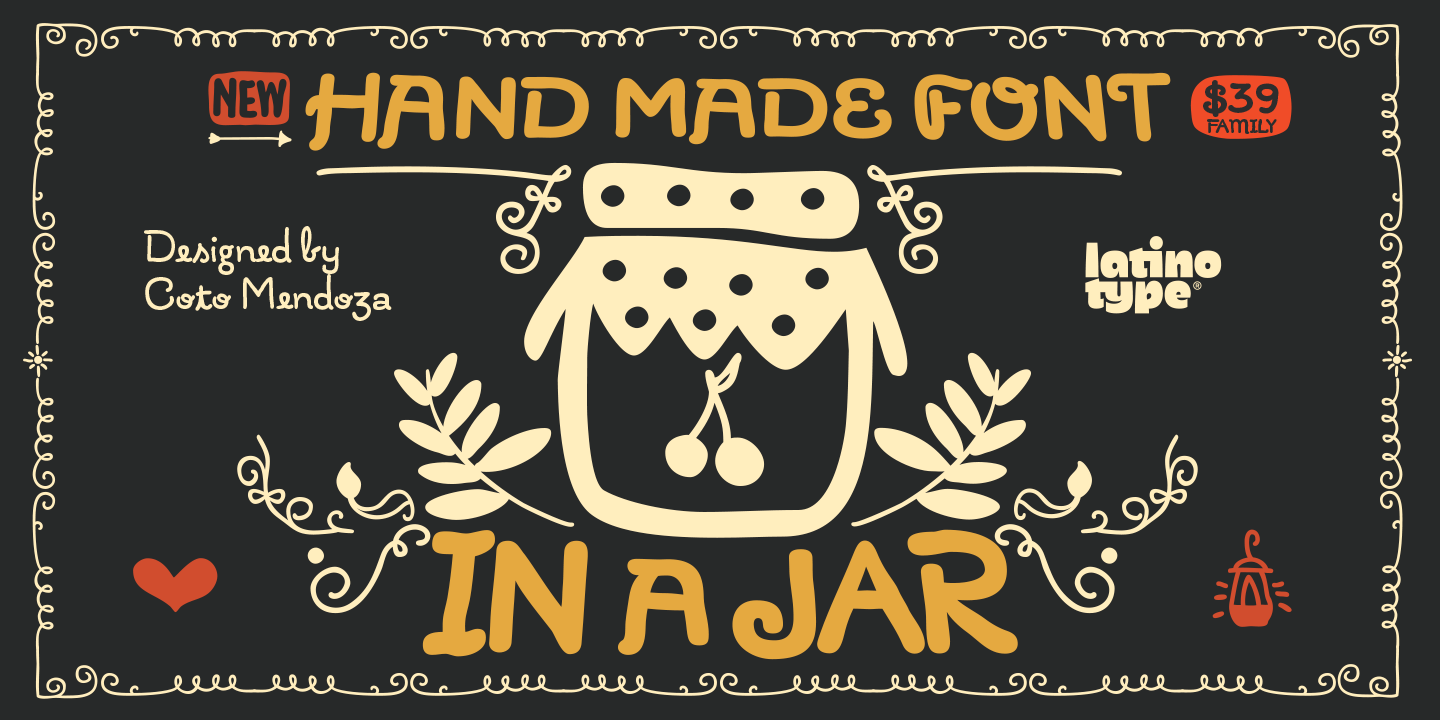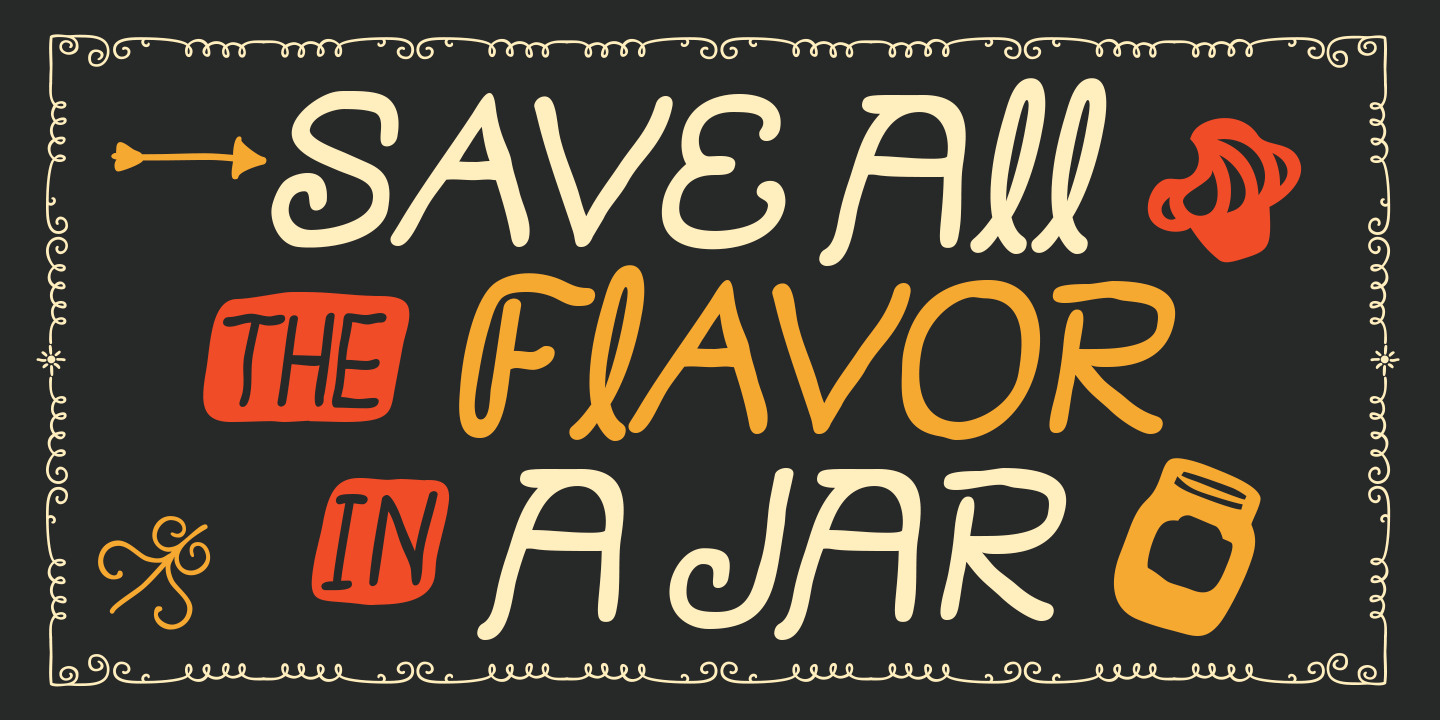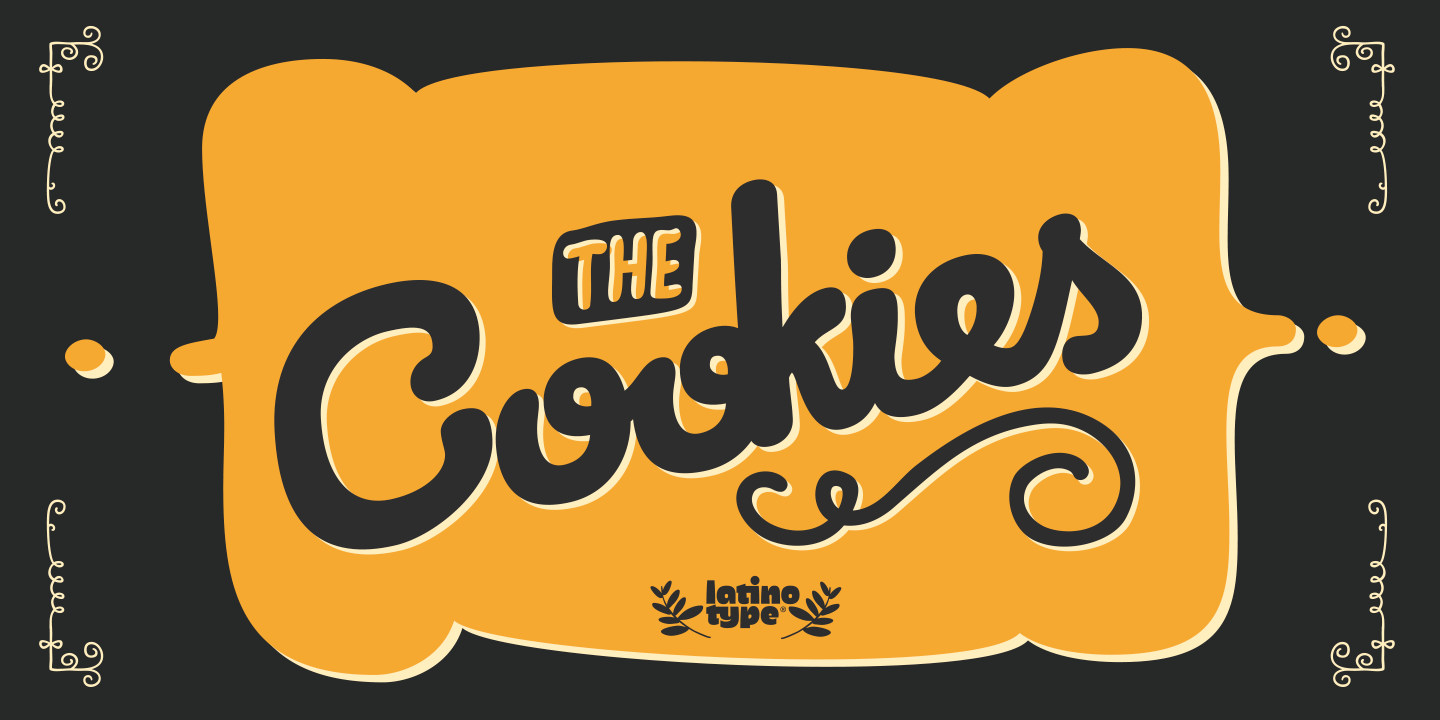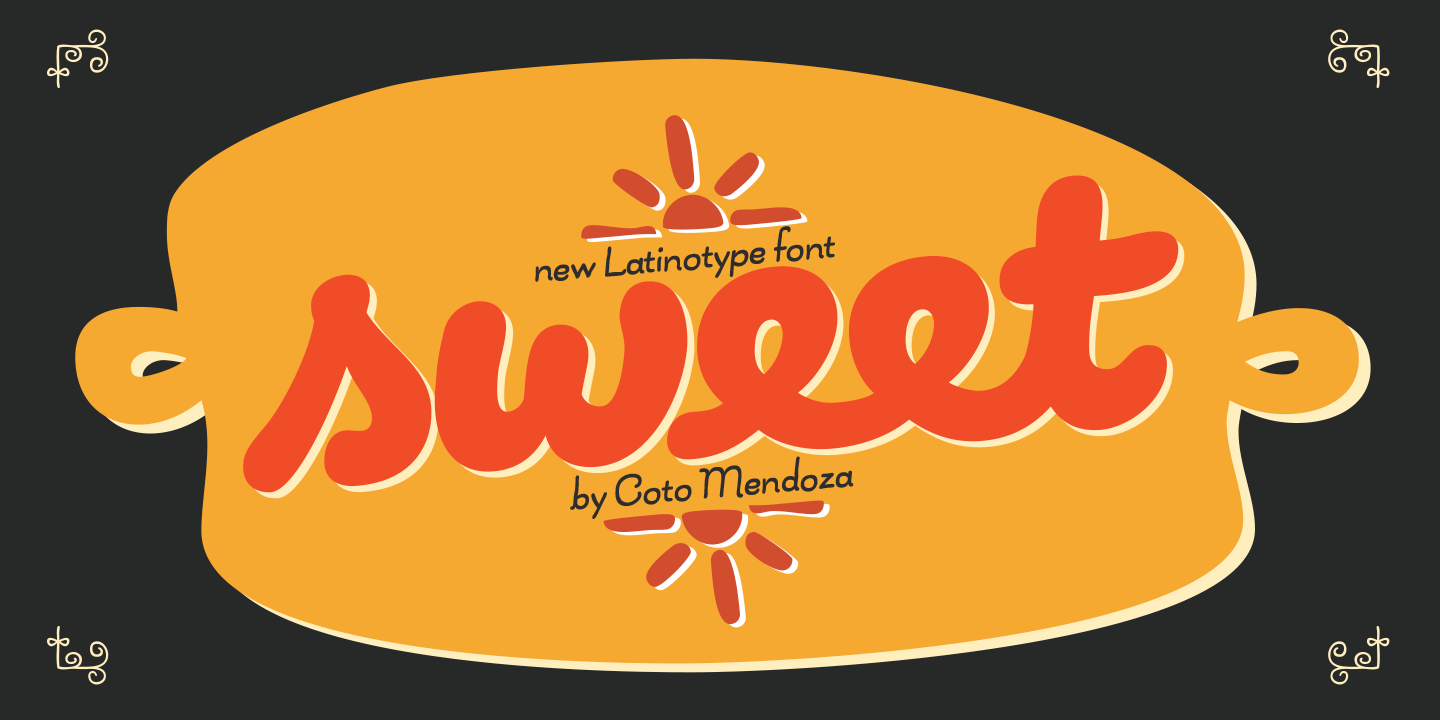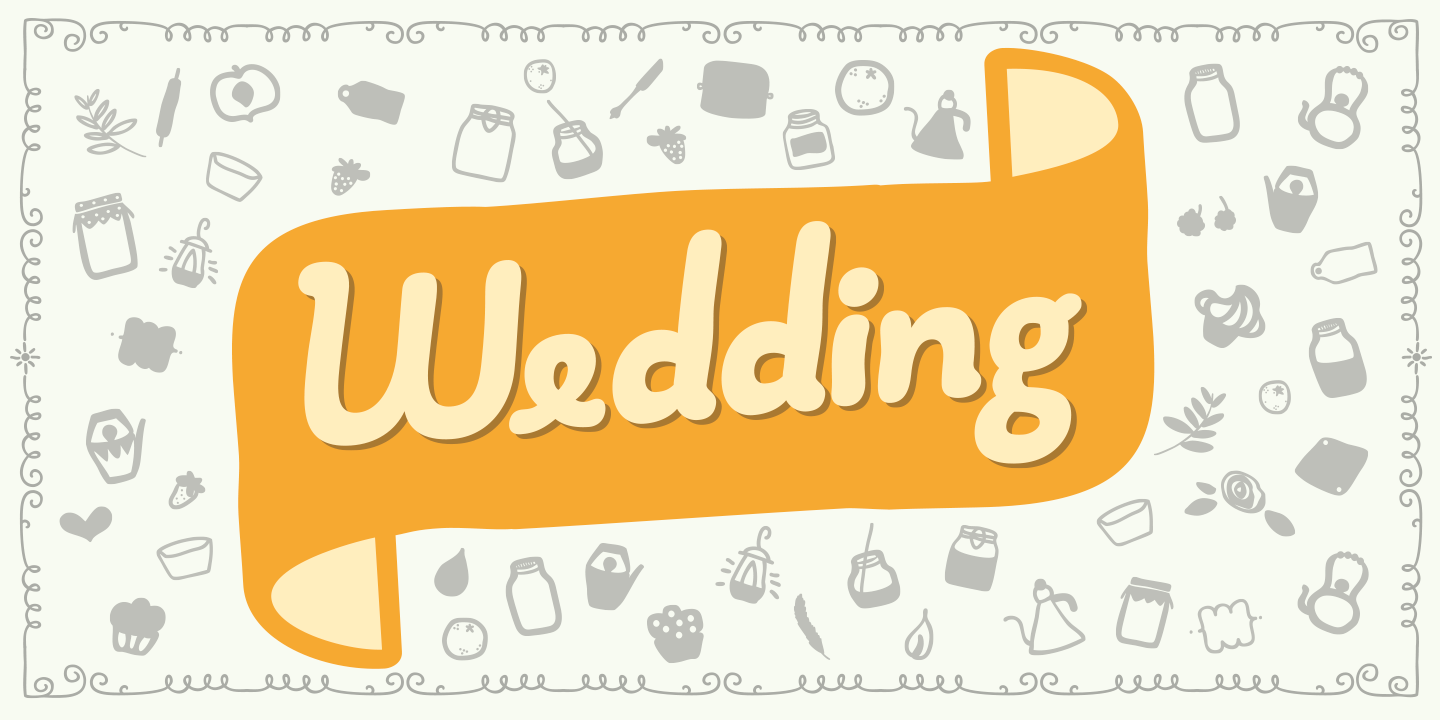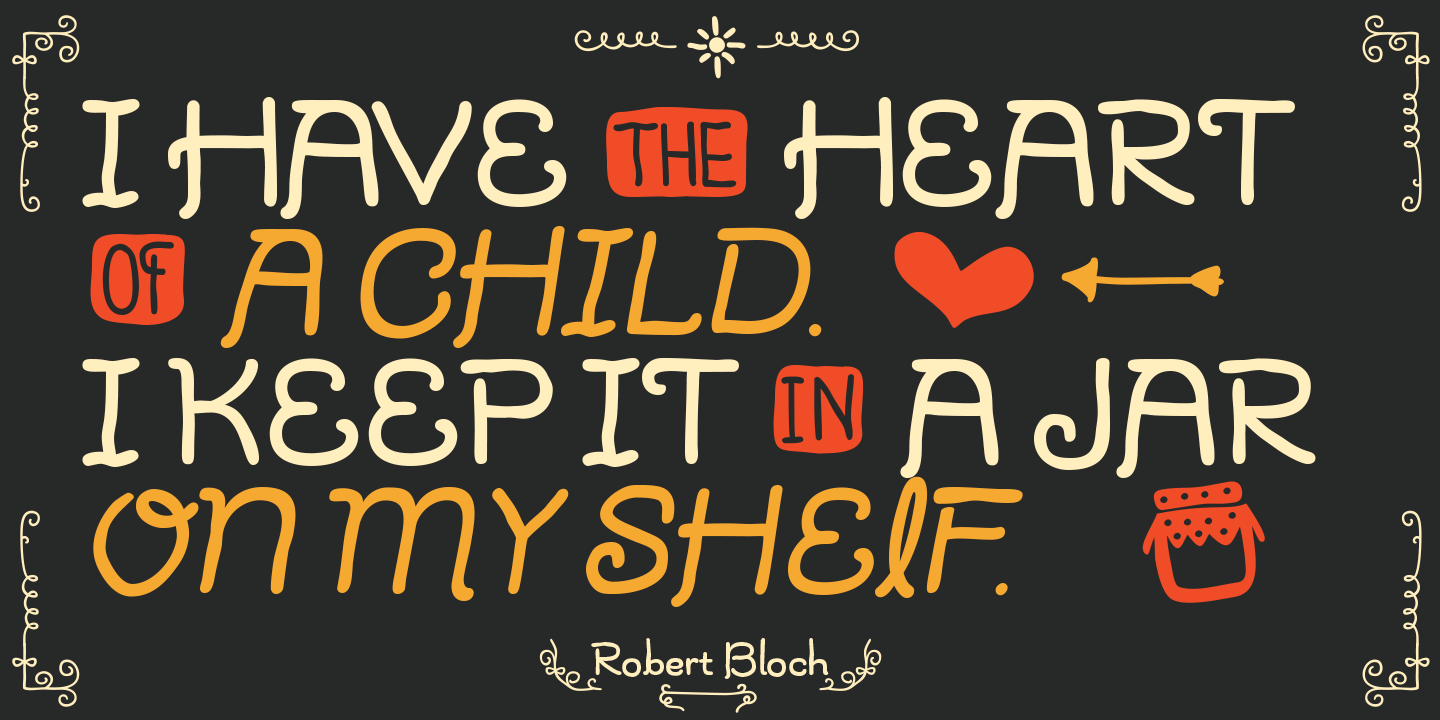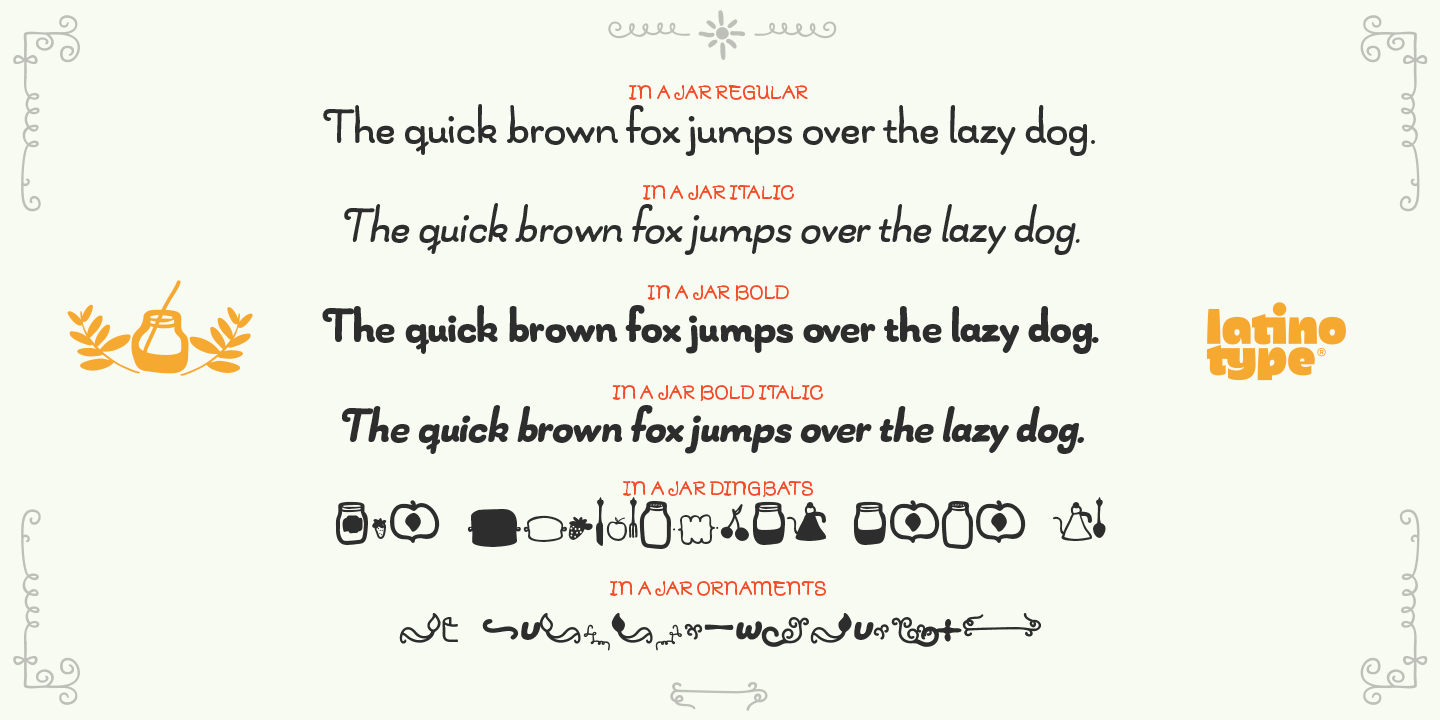
Designed for use in short text and big sizes, this font is perfect for brand design, headlines, labels, greetings cards and all kinds of things related to kitchen and foods.
In a Jar is a sweet little family that includes alternates, compound words, and ligatures plus a series of very cute dingbats and ornaments to compliment and accentuate the handmade design.